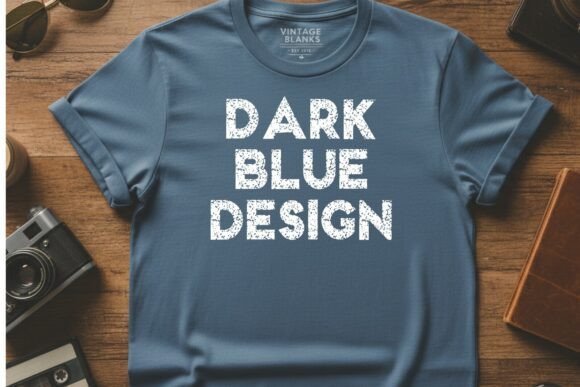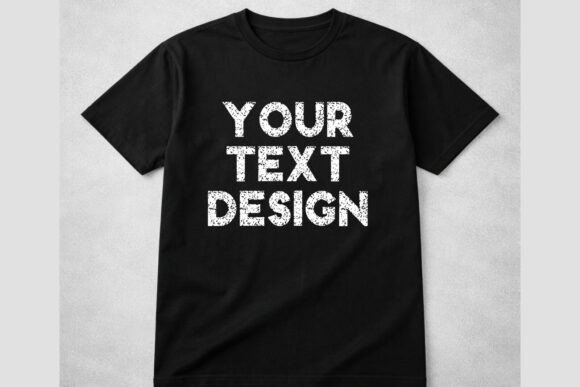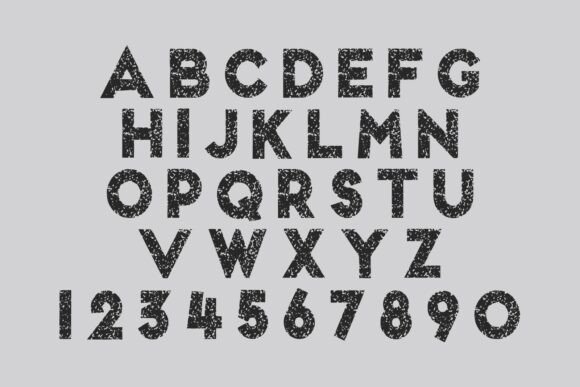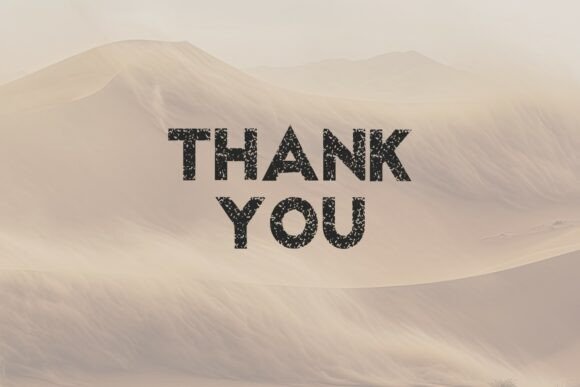
Unleash Your Edgy Side with the Black Rought Font
Have you ever stared at a blank canvas, waiting for that spark of inspiration to strike? For designers, that moment often comes when we’re trying to convey a message that’s bold, raw, and unapologetic. It’s a call to arms, a declaration of our creative intentions, and a chance to stand out in a crowded market. And that’s exactly what the Black Rought Font is designed to do.
This grunge display font is a masterclass in rugged elegance, featuring a distressed texture that adds a layer of depth and character to any design. Whether you’re working on a poster, album cover, or streetwear design, the Black Rought Font delivers a look that’s instantly recognizable and uniquely yours.
- Font Family: Black Rough is a sans-serif font family designed for display purposes.
- Size: Black Rough font family includes a range of weights from Thin to Black, providing flexibility for different design applications.
- Unique Characteristics: Black Rough font features a distinctive, bold, and geometric design with sharp angles and clean lines, making it ideal for headlines, titles, and display typography.
Designer Review: Black Rought Font
Overall, I was quite pleased with the Black Rought Font. It’s a solid choice for those looking for a font that exudes elegance and sophistication. ✨
Here are some of its strengths:
- ✨ Unique design: Black Rought Font has a distinctive look that sets it apart from more common fonts.
- ✨ Versatile: It can be used in a variety of contexts, from formal documents to marketing materials.
- ✨ Legibility: The font is easy to read, even at smaller font sizes.
- ⚠️ Limited character set: Black Rought Font may not include all the characters you need, particularly for languages that use non-Latin scripts.
- ⚠️ Not ideal for small text: While the font is legible, it can look a bit cluttered when used for small text.
- ⚠️ May not work well in all contexts: Black Rought Font can look out of place in more casual or playful contexts.
Overall, I would recommend Black Rought Font for projects where you need a sophisticated, elegant look. Just be sure to consider its limitations before making a final decision.
For optimal results, use the Black Rought Font in conjunction with bold or italic text effects to create visual interest.
Experiment with different font sizes and colors to achieve the desired impact.
Use the font in combination with other design elements, such as images or shapes, to create a cohesive and engaging design.
The Black Rought Font is ideal for use in:
Headlines and titles
Captions and descriptions
Social media graphics and ads